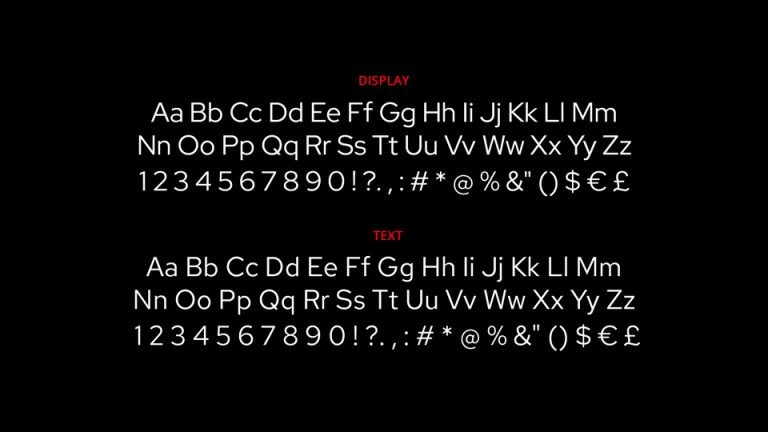
Red Hat Font
Red Hat Sans Serif Font is a fresh take on the geometric sans genre, taking inspiration from a range of American sans serifs including Tempo and Highway Gothic.
The Red Hat type family is produced in 2 optical sizes, in a range of weights with italics. The Display styles, made for headlines and big statements, are low contrast and spaced tightly, with a large x-height and open counters. The Text styles have a slightly smaller x-height and narrower width for better legibility, are spaced more generously, and have thinned joins for better performance at small sizes. The two families can be used together seamlessly at a range of sizes.
The fonts were originally commissioned by Paula Scher / Pentagram and designed by Jeremy Mickel / MCKL for the new Red Hat identity.